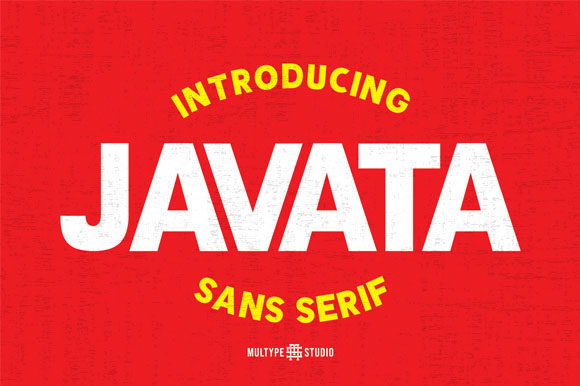
Introducing Javata Font, the Sans Serif Masterpiece for Logo Design
In the world of visual communication, a logo is the ultimate symbol of identity, a visual imprint that leaves a lasting impression on your audience. Choose wisely the font that adorns your logo, for it holds the power to elevate your brand, connect with your customers, and establish a visual legacy.
Javata Font, a striking sans serif creation from the renowned MultypeStudio, emerges as the font of choice for logo design in 2017. Its sophisticated style, meticulously crafted with clean lines and sharp edges, commands attention and exudes professionalism.
With Javata, your logo will radiate confidence and modernity, leaving an unforgettable mark on the minds of your customers. Its strong, bold strokes convey a sense of stability and reliability, while its elegant curves add a touch of grace and approachability.
Whether you're a seasoned designer seeking to elevate your creations or an entrepreneur seeking to establish a strong brand identity, Javata Font is your perfect partner. Its versatility extends beyond logos, making it an ideal choice for branding materials, website design, social media graphics, and more.
Unleash your creativity and transform your ideas into stunning visuals with Javata Font. Its versatility knows no bounds, making it the perfect choice for a multitude of creative projects, from Instagram posts to handmade calligraphy scripts.
Javata Font - The Art of Expression
- Captivating Sans Serif Style: Its sophisticated design and clean lines make it a standout choice for logo design.
- The Epitome of Professionalism: Javata exudes confidence and modernity, leaving a lasting impression on your customers.
- Versatility Unleashed: From logos and branding materials to website design and social media graphics, Javata adapts seamlessly to your creative needs.
- The Ideal Instagram Font: Its clean lines and sharp edges make it perfect for creating visually appealing Instagram posts that capture attention.
- DIY Projects Made Beautiful: Add a touch of elegance to your handmade calligraphy scripts and other DIY projects with Javata's sophisticated style.
Choose Javata Font today and unlock the potential of your creativity. Let your brand shine, let your designs captivate, and let your art leave a lasting impression. The world of visual communication awaits your masterpiece.